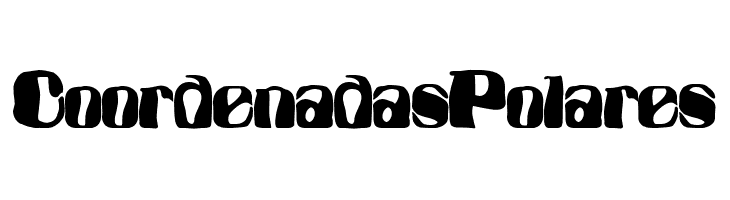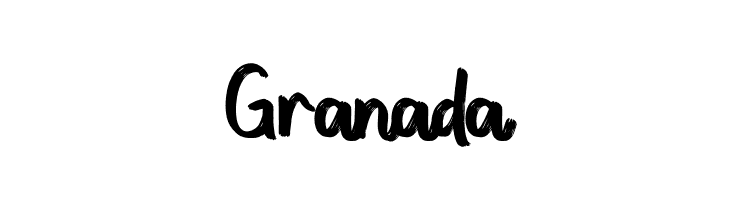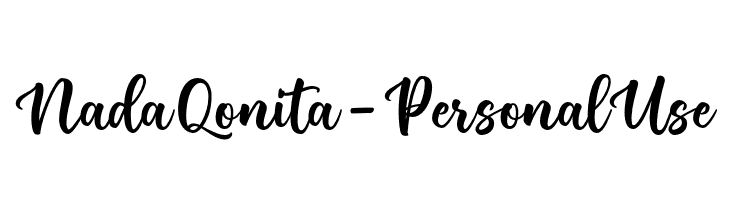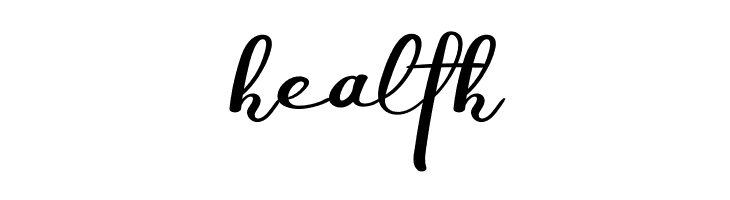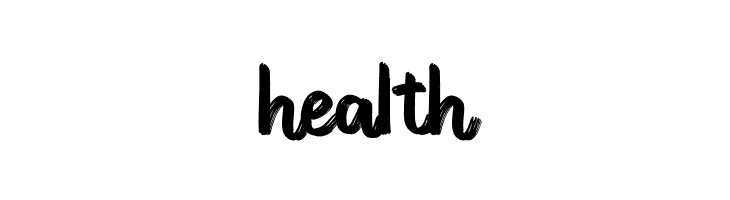
A casual and elegant handwritten font with fluid, connected letterforms.
A graceful script font with fluid, cursive strokes and elegant curves.
A cursive, handwritten-style font with elegant loops and swashes.
A bold, distorted font with a three-dimensional, artistic style.
A dynamic, hand-brushed font with expressive, irregular strokes.
A fluid, handwritten font with a casual and artistic style.
A bold, handwritten font with a playful and artistic style.
A modern, stencil-inspired font with bold, geometric characters.
A bold, artistic font with thick, irregular strokes and a modern, creative style.
A bold, high-contrast serif font with a modern yet classic appeal.